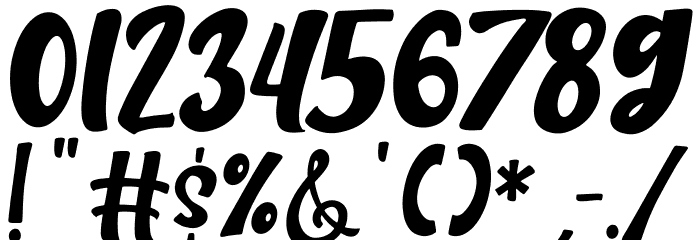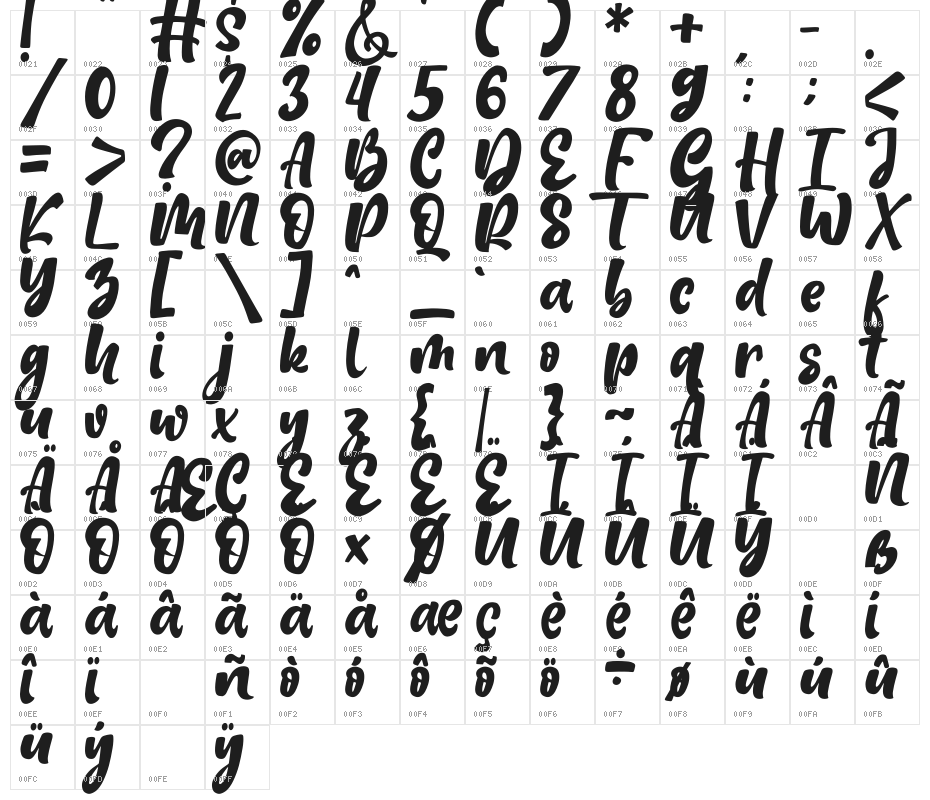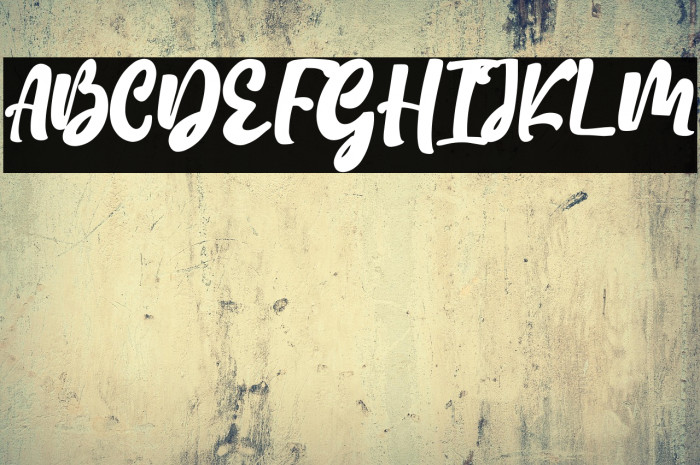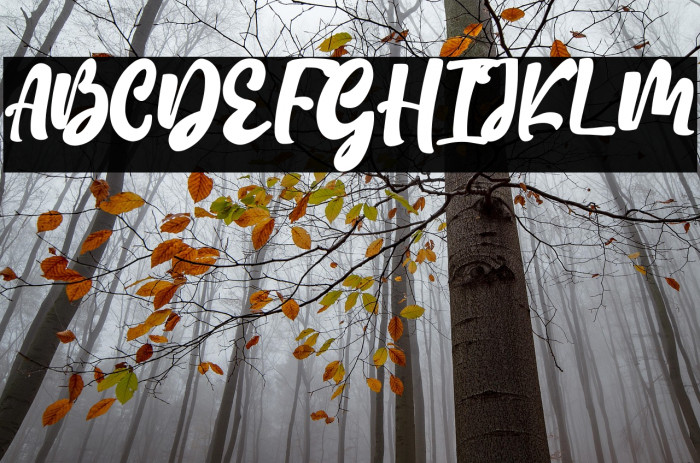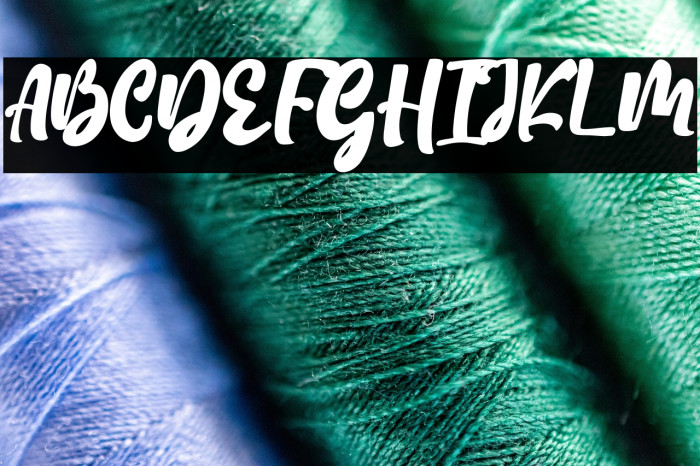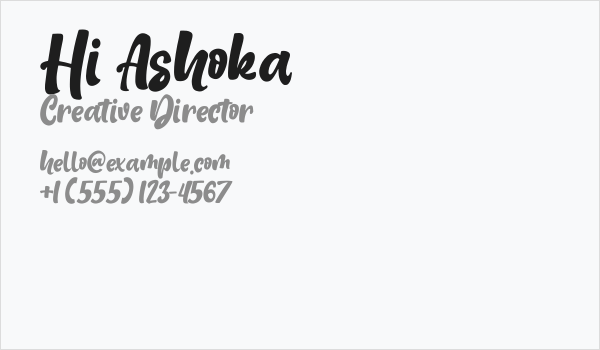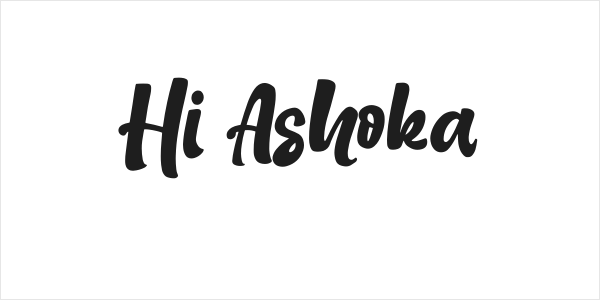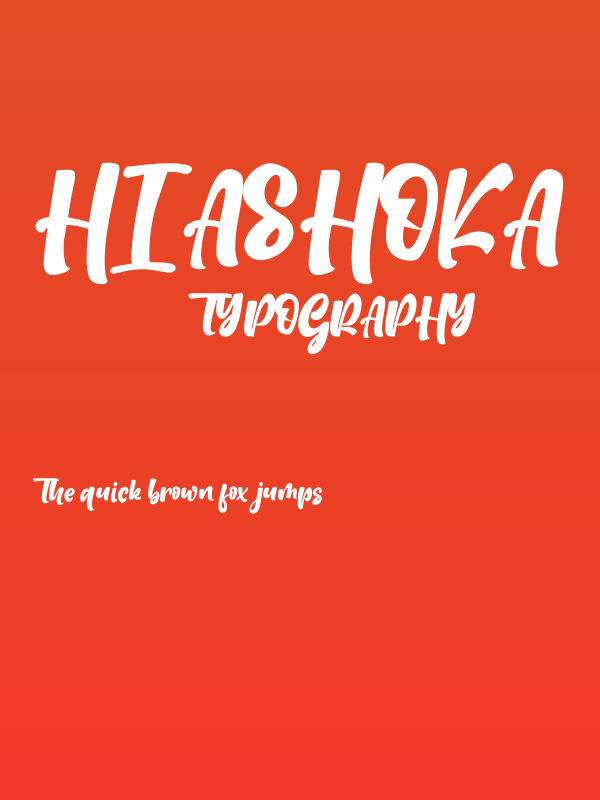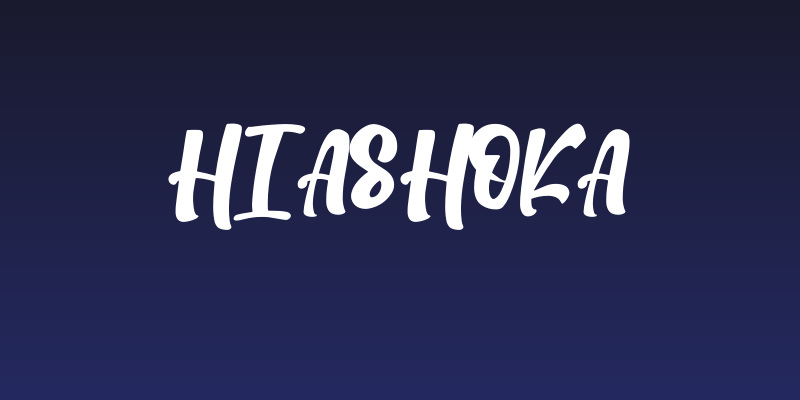
Hi Ashoka Font
Hi Ashoka Description
This font exhibits a bold and expressive style, characterized by its thick, flowing strokes and a handwritten appearance. The letters are crafted with a sense of movement, giving them a dynamic and lively feel. The uppercase and lowercase letters maintain a consistent style, with rounded edges and a slightly condensed form. The numerals and special characters are equally bold, ensuring a cohesive look across all elements. This font's playful and artistic nature makes it suitable for creative projects that require a touch of personality and flair.
| Proposed Projects | Ideal for branding, posters, invitations, and social media graphics. |